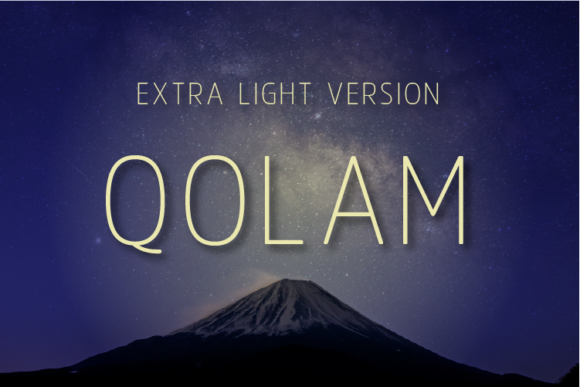
Typefaces hold the power to transform ordinary words into art, to elevate designs from mundane to magnificent, to turn visual concepts into breathtaking masterpieces. Enter Qolam Extra Light, a Swedish-style sans serif font with timeless beauty, designed to take your creative endeavors to extraordinary heights.
With Qolam Extra Light, you're not just adding another font to your collection; you're embarking on a journey of typographic exploration, where each character is meticulously designed to capture an emotion, convey a message, and tell a story. This font is not merely a font; it's an expression of artistic brilliance, a tool that unlocks your creativity and ignites your imagination.
Picture the allure of a wedding invitation, the words "I do" dancing across the page in the graceful curves of Qolam Extra Light. The font adds an air of sophistication, an understated charm that complements the joy of the occasion. Every RSVP card becomes a keepsake, a cherished memento adorned with the elegant simplicity of this remarkable font.
Imagine the impact of a magazine spread, where articles come alive with Qolam Extra Light's modern and refined style. The words flow seamlessly, effortlessly drawing the reader's eye through the pages, captivating them with both the content and the visual artistry. This font transcends the boundaries of language and culture, conveying emotions and ideas with unparalleled clarity.
In the realm of web design, Qolam Extra Light shines as a beacon of contemporary aesthetics. It brings a touch of sophistication to online spaces, seamlessly adapting to various layouts and themes. With its clean lines and airy presence, Qolam Extra Light enhances user experience, creating digital environments that are both engaging and memorable.
And oh, the magic it weaves when it comes to creating striking and unforgettable Logos! With Qolam Extra Light, your brand's identity takes on a new dimension. Its timeless appeal transcends trends, ensuring that your logo remains relevant and captivating for years to come. Whether you're designing for a fashion house, a tech startup, or a non-profit organization, Qolam Extra Light adds a touch of class, a hint of distinction that sets you apart from the crowd.
With Qolam Extra Light, you're not just buying a font; you're investing in an extraordinary font family that adapts seamlessly to any and every design project. It's a font that inspires, empowers, and elevates your creativity. Embrace the beauty of Qolam Extra Light today and watch your designs transform into enchanting works of art. Let your imagination soar, let your creativity flourish, and let Qolam Extra Light guide you on an artistic journey like no other.